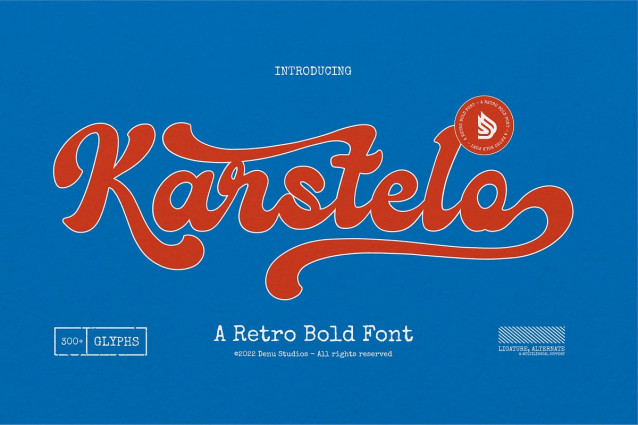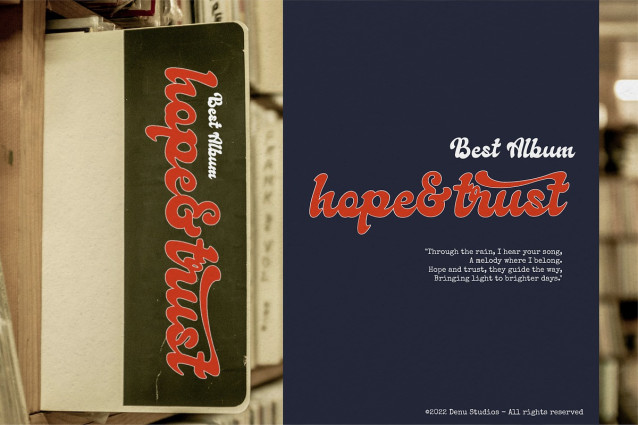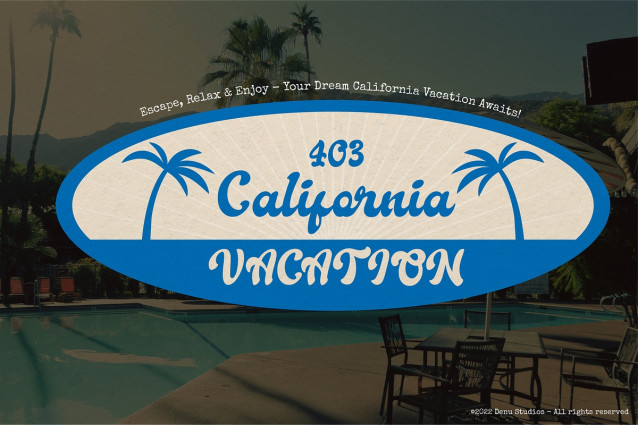
Karstelo Font
Karstelo Font | Retro Bold Font, from Denustudios, suitable for any projects such as: logos, branding projects, homeware designs, product packaging, mugs, quotes, posters, shopping bags, t-shirts, book covers, name card, invitation cards, greeting cards, label, photography, watermark, special events, and all your other lovely projects that need a Retro Bold Font taste.